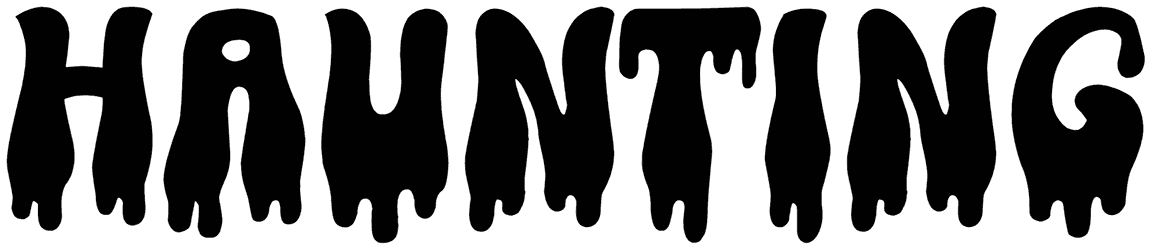
Raslani Sanguinar Kaeser Font
When you look at the Raslani Sanguinar Kaeser font, its scary style makes you stare. This horror font has a striking texture and can be helpful for several situations.
For instance, you may use it in posters, movie titles, and video games, but it does not support lowercase letters. The Raslani Sanguinar Kaeser font’s letters are bloody, which creates a scary feeling, so give this dripping font a chance to impact the viewers.